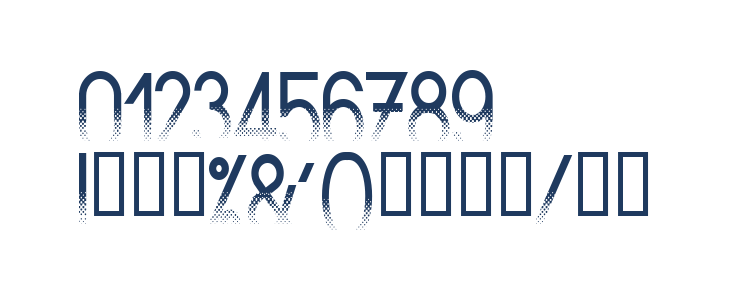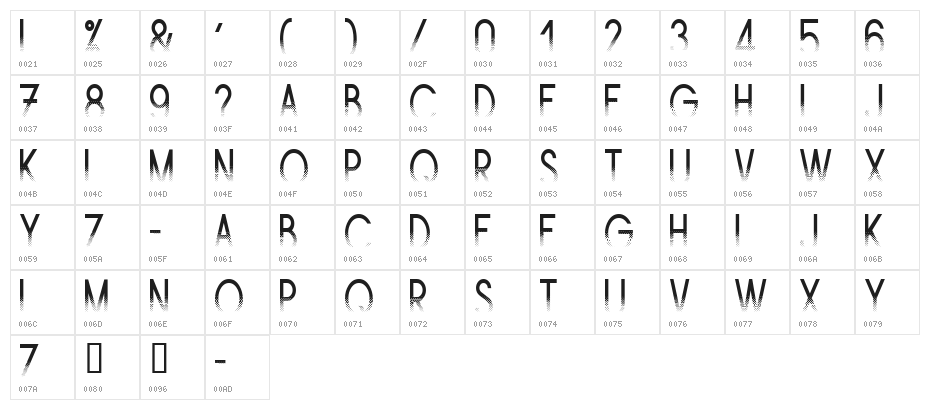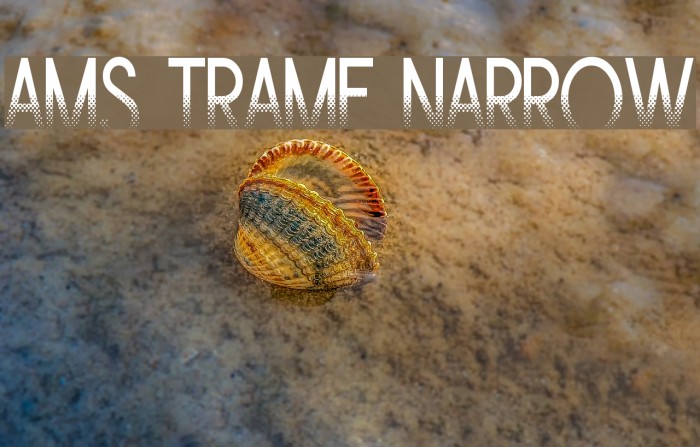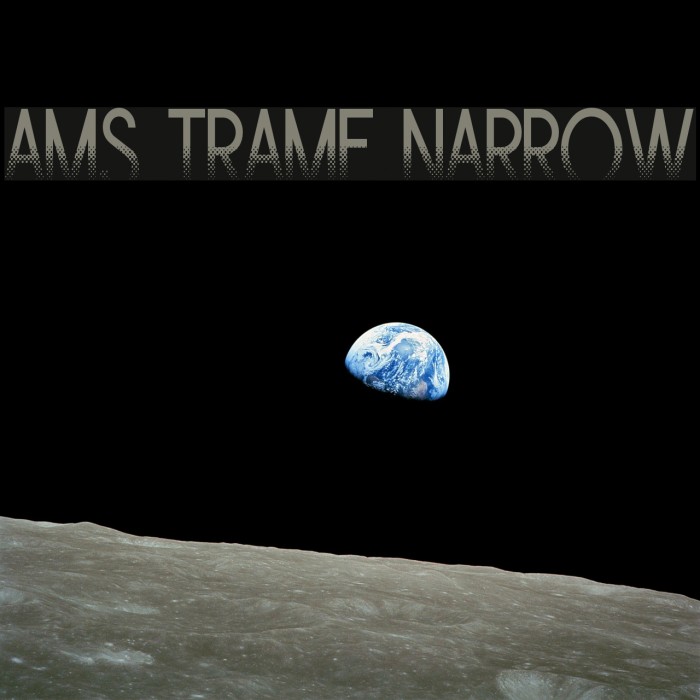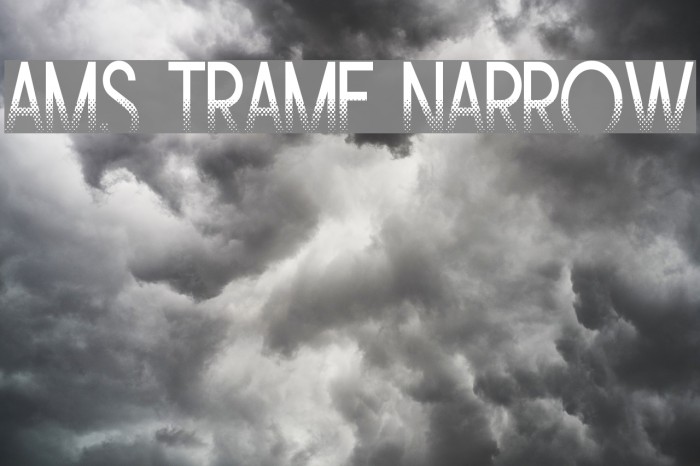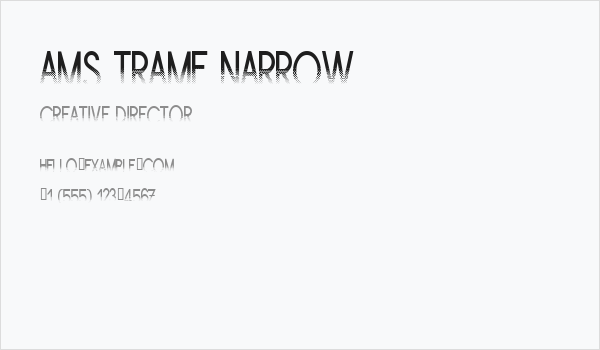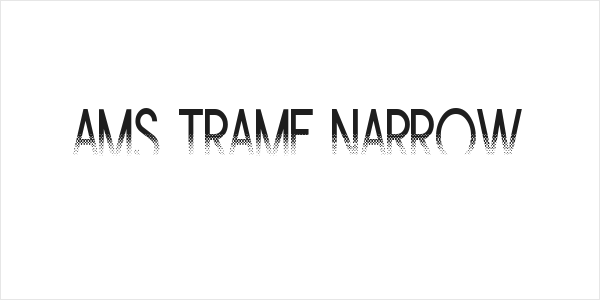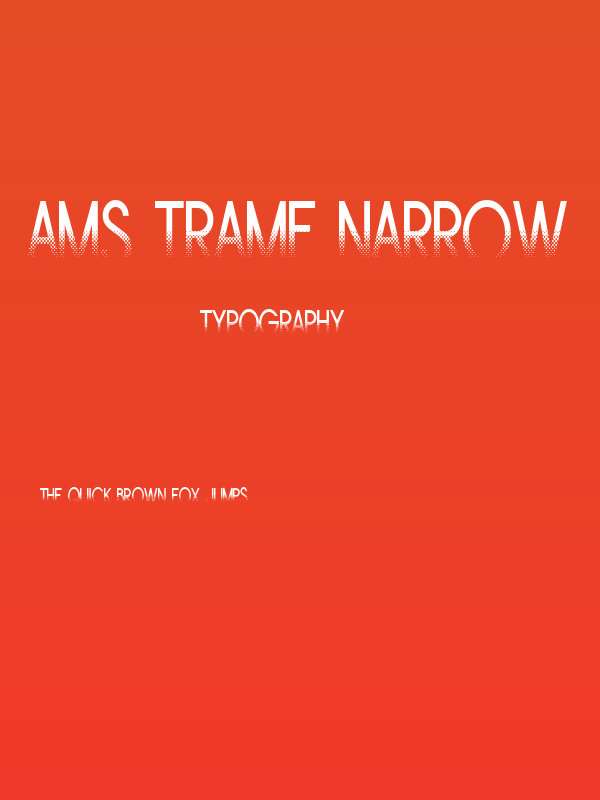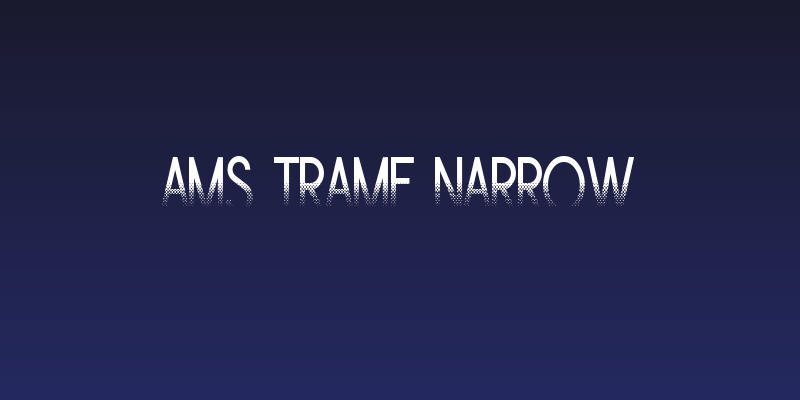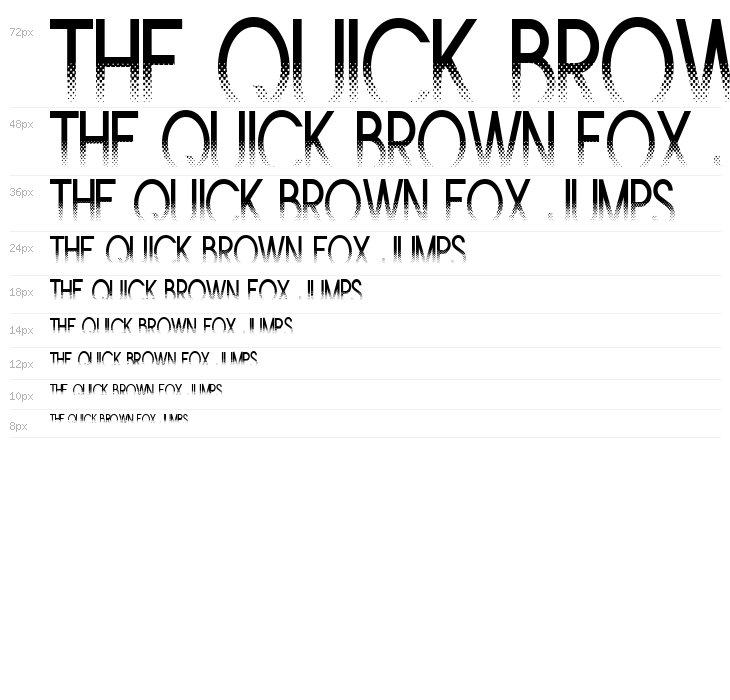
Ams Trame Narrow Font
Ams Trame Narrow Description
This font features a unique and modern design with a gradient effect that transitions from solid black at the top to a dotted pattern at the bottom. The characters are narrow and elongated, giving a sleek and contemporary appearance. The uppercase letters are bold and striking, while the lowercase letters maintain the same stylistic elements, ensuring consistency across the typeface. The numbers and special characters follow the same design principles, making the font versatile for various uses. The overall aesthetic is both artistic and functional, suitable for creative projects that require a distinctive and eye-catching typeface.
Proposed ProjectsIdeal for posters, branding, and digital art projects that require a bold and modern typeface.